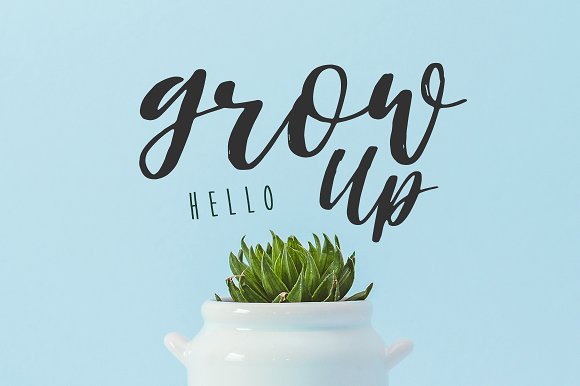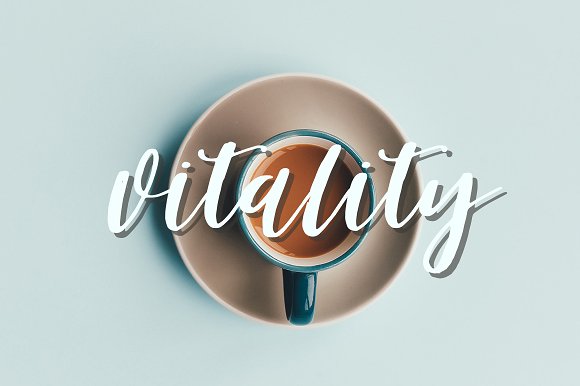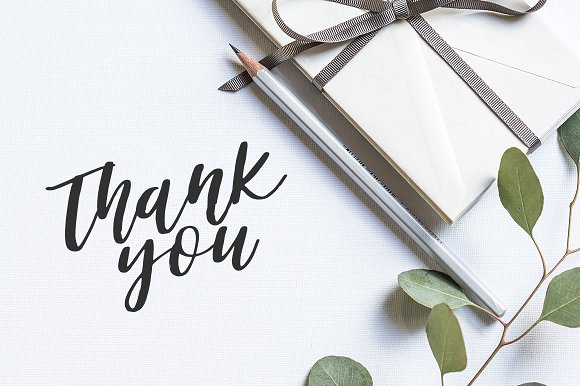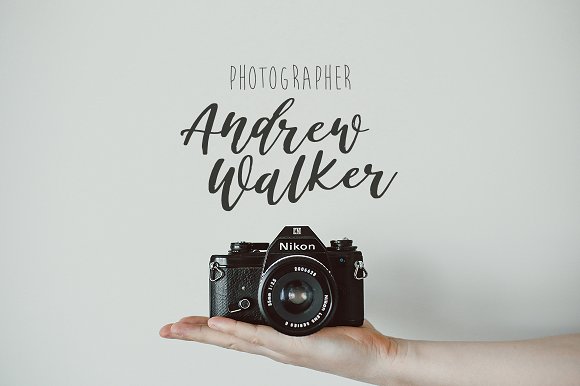
Battery Font
This modern calligraphy script has been attentively written, with gentle curves to produce a font thats completely distinctive and original. It contains a full set of lower & uppercase letters, a large range of punctuation, numerals, and multilingual support. Perfect for adding a elegant and unique touch to your lettering projects and branding